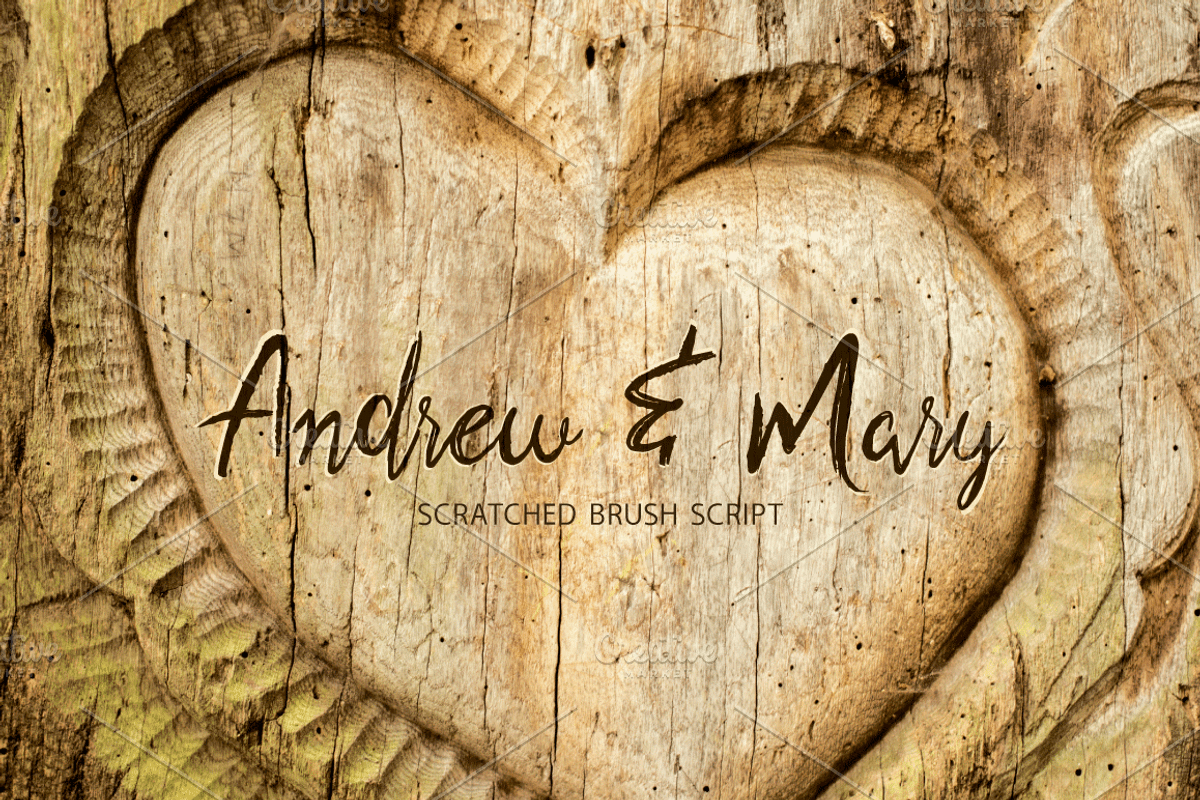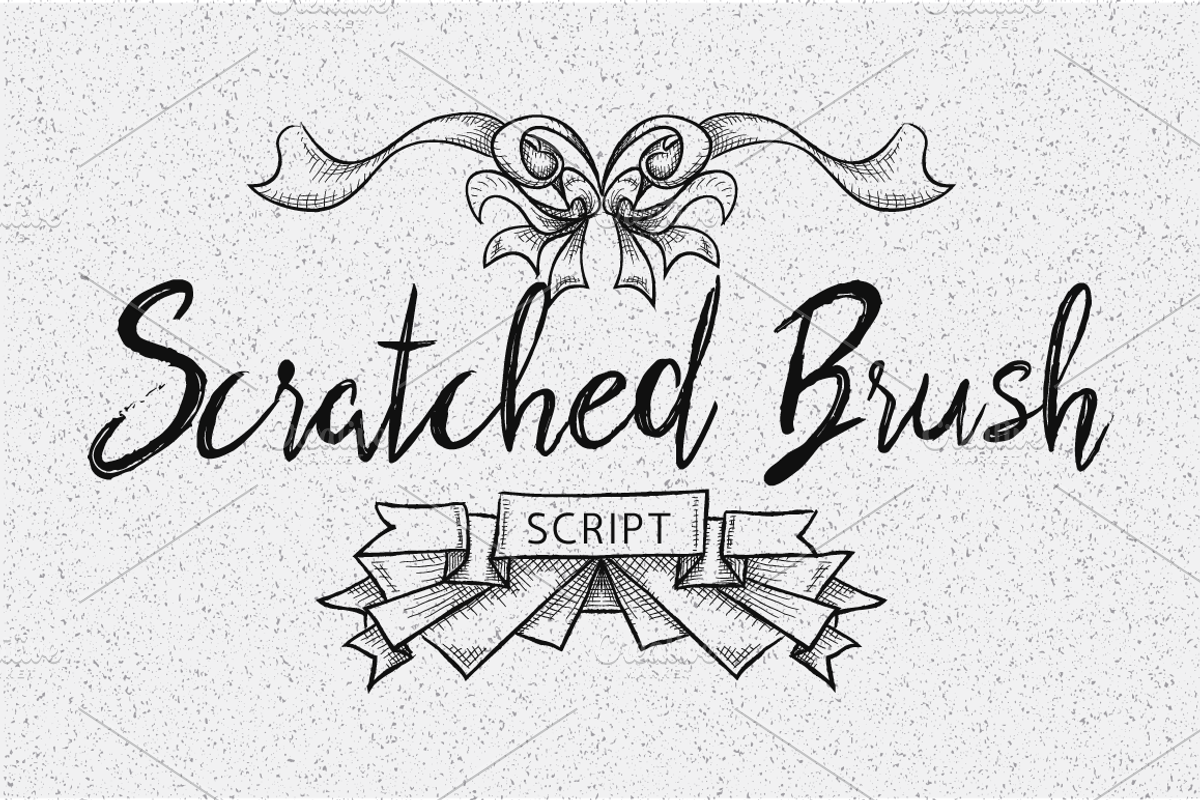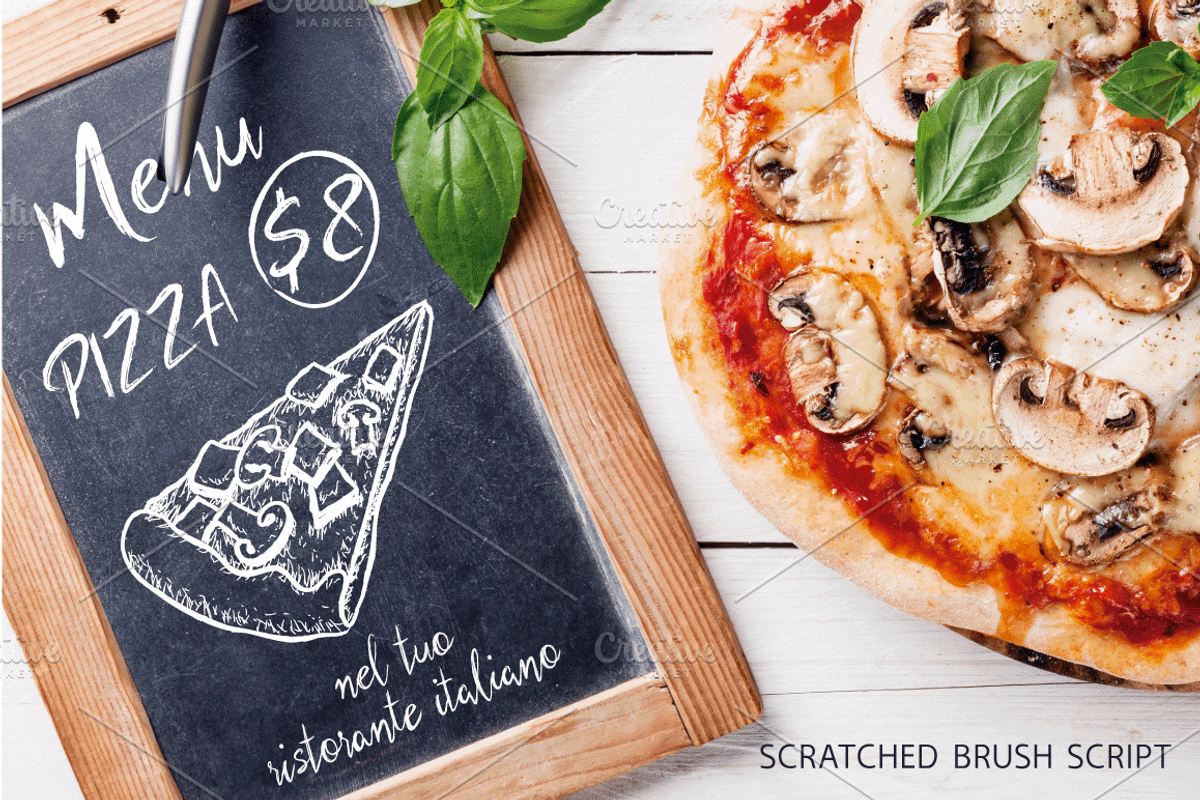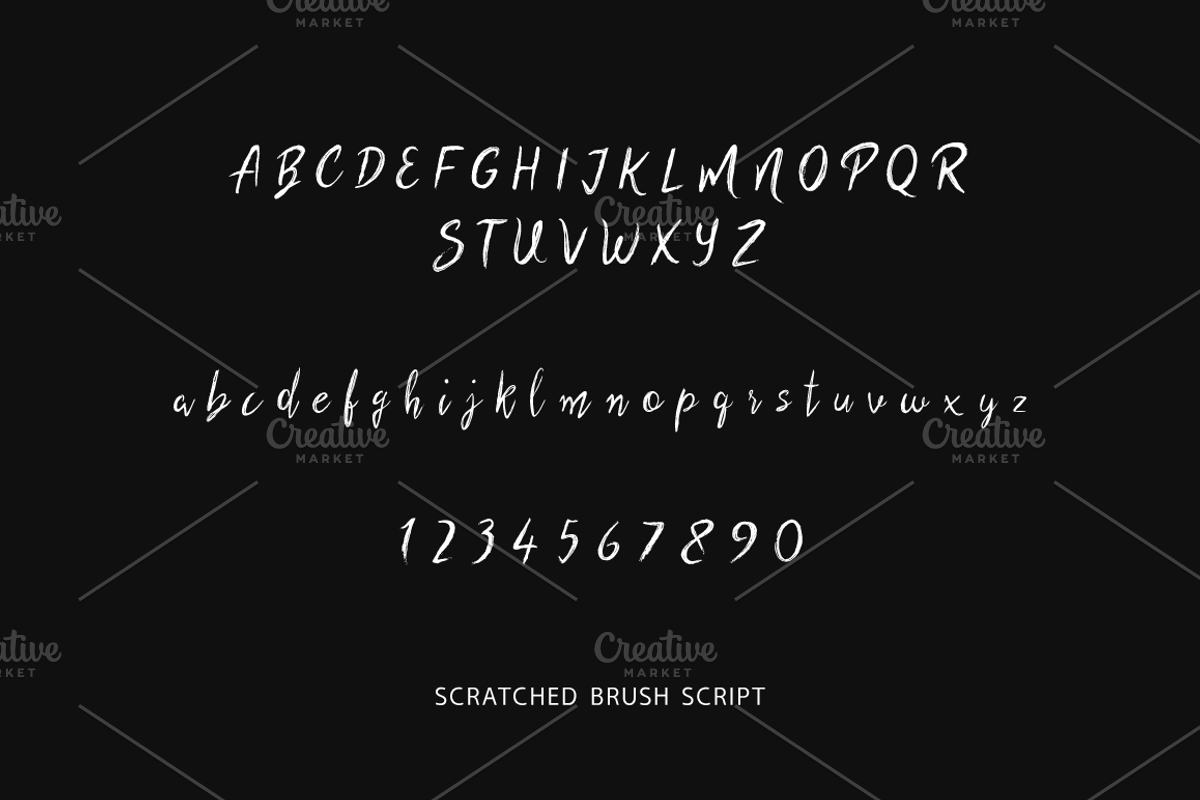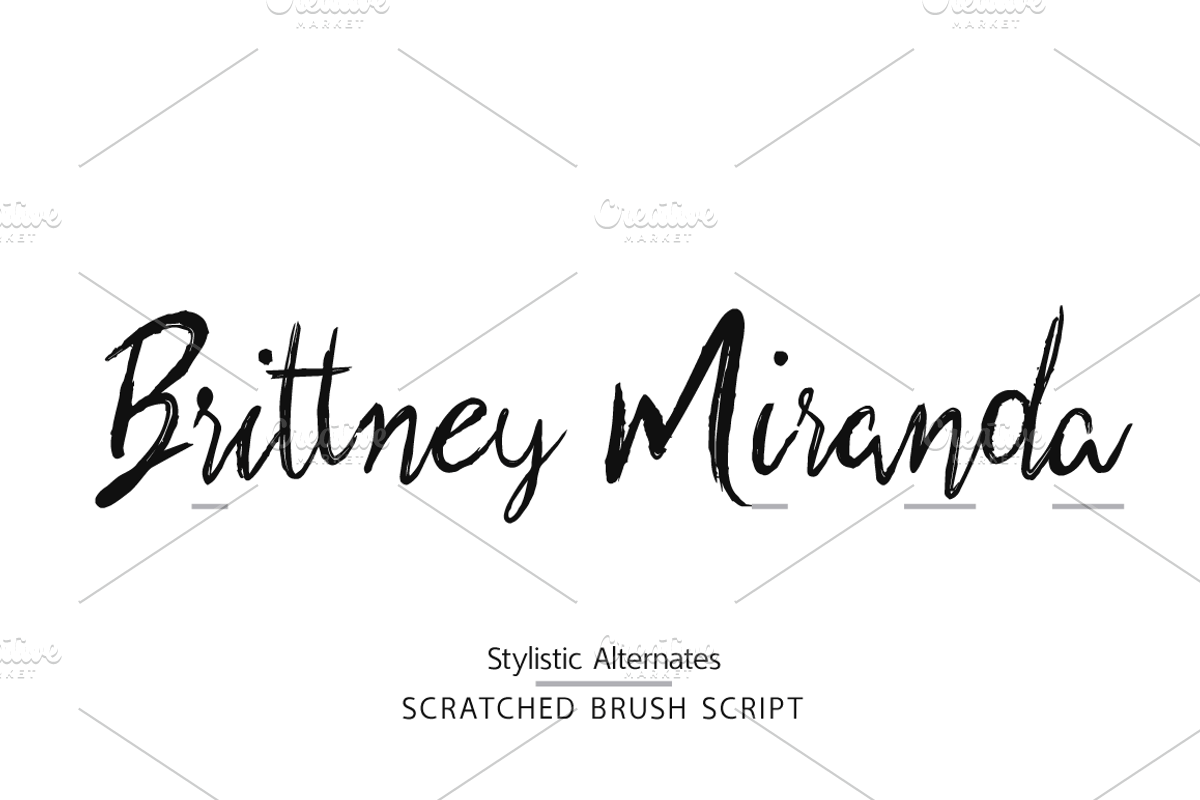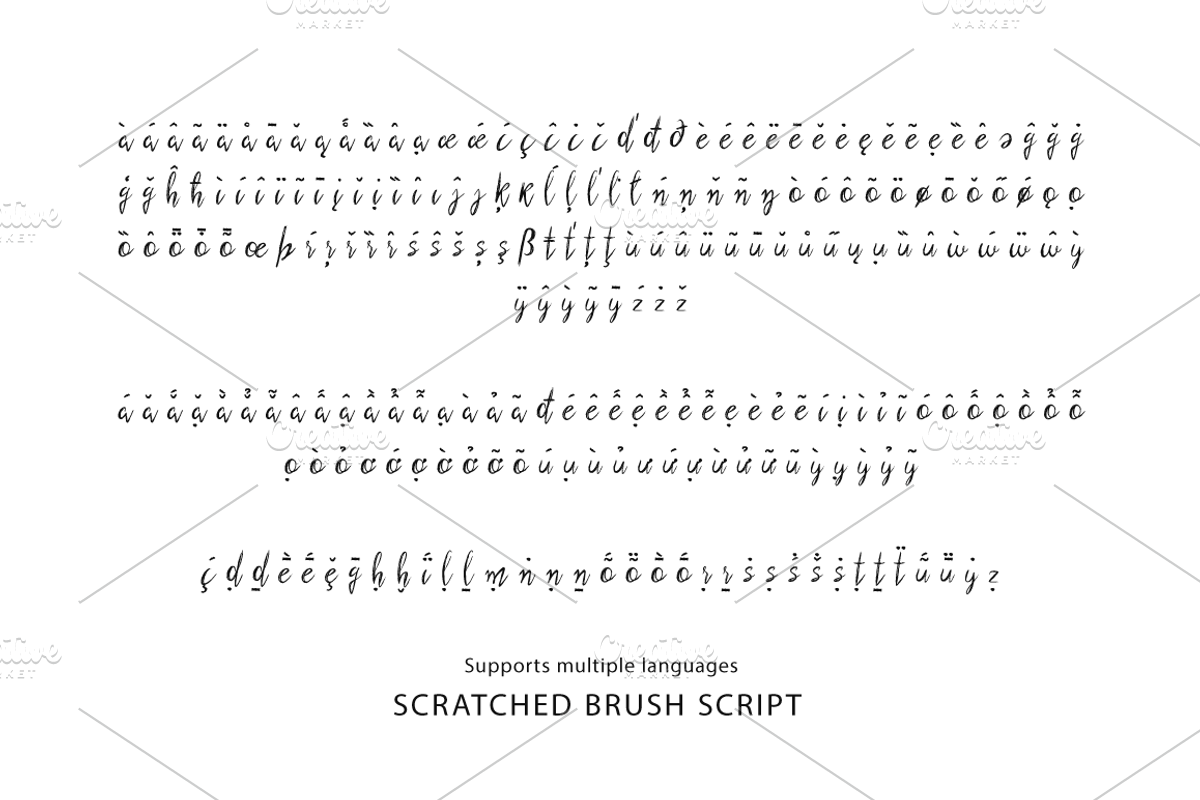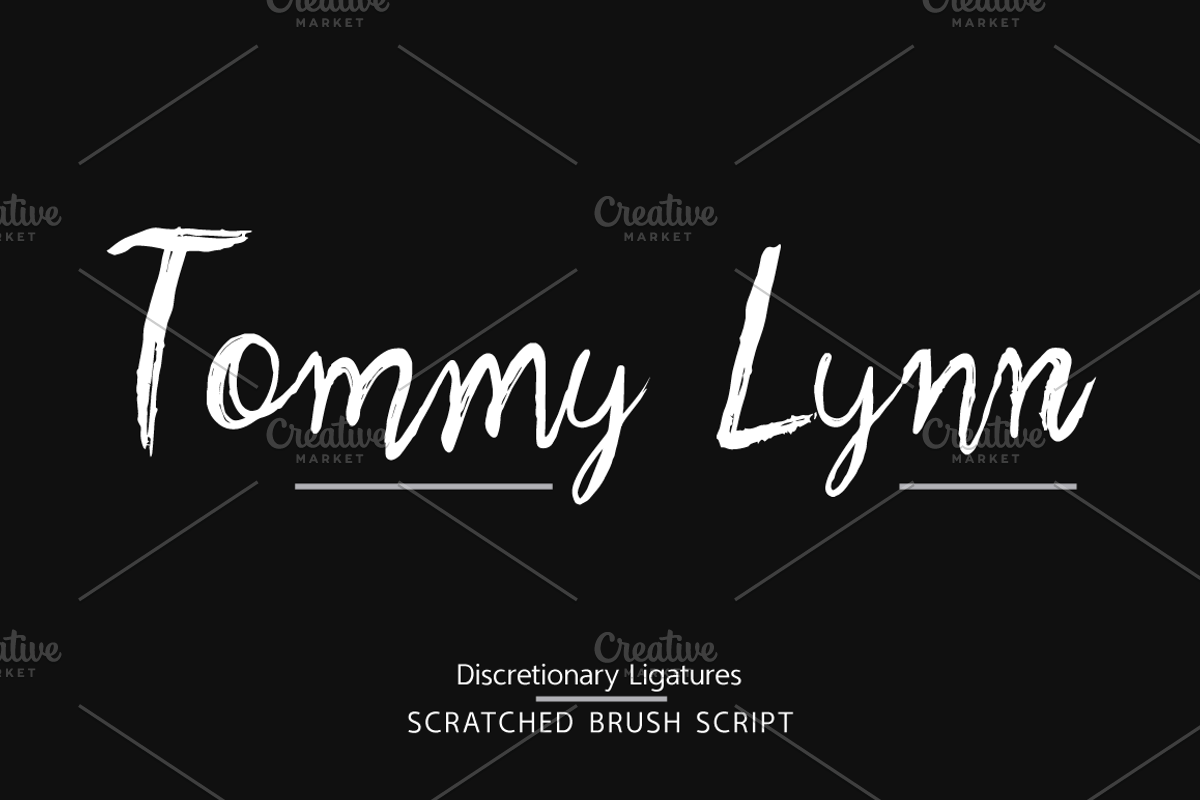
Scratched Brush Script Font
Scratched Brush Script
with alternate lowercase to customize your work.
128 Languages supported: Central Europe, Baltic, Turkish, Romanian and Vietnamese
Discretionary Ligatures
- Scratched Brush Script with alternate lowercase to customize your work.
- 128 Languages supported: Central Europe, Baltic, Turkish, Romanian and Vietnamese OpenType alternates Discretionary Ligatures 634 Glyphs Sho
Why Scratched Brush Script Font is worth a look
Scratched Brush Script Font by vectalex fits naturally into Branding, posters, packaging, typography.